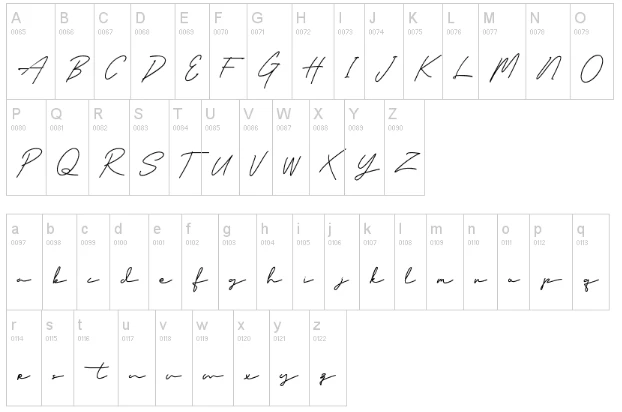
The Classy Beautiful is a typeface duo that is both elegant and modern. This set includes two font files: script and sans serif, both of which are meant to work well together or as stand-alone types. Nirmana visual created and offered the gorgeous typeface. Classy Beautiful is the ideal typeface for all of your creative projects. Regular is the subfamily of the Classy Beautiful font family. The font is available in two formats: TTF and OTF.
It’s a lovely typographic harmony for logos and branding, wedding designs, social media posts, commercials, and product designs, among other things. However, the font Classy Beautiful is best used for branding and home decor projects.